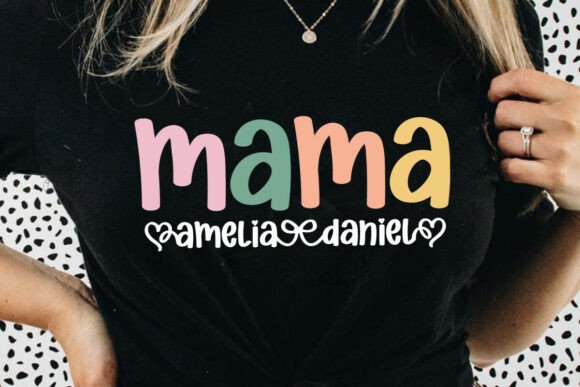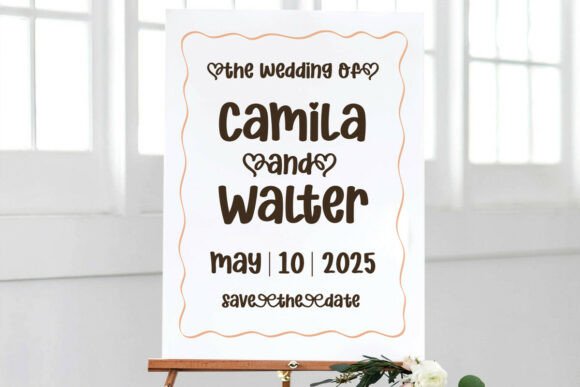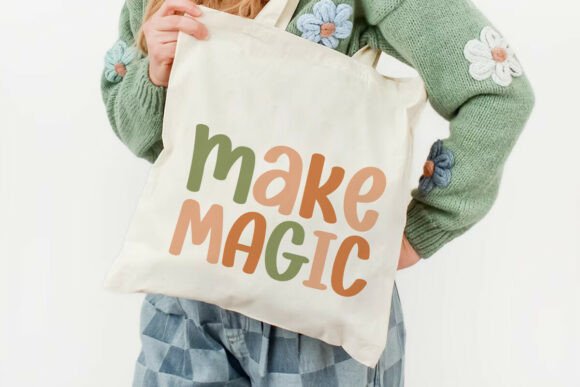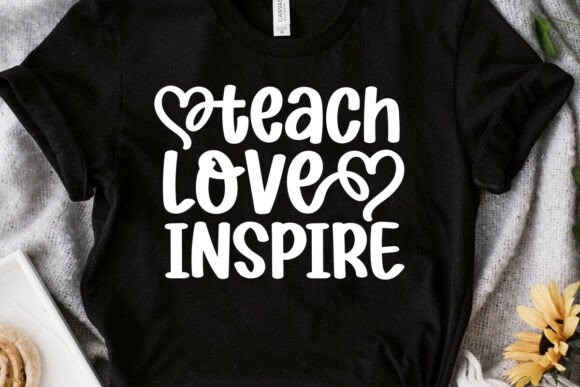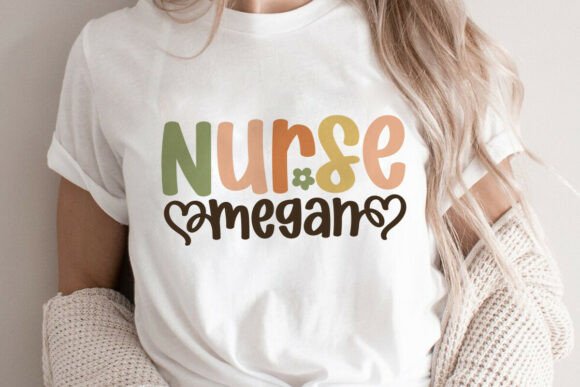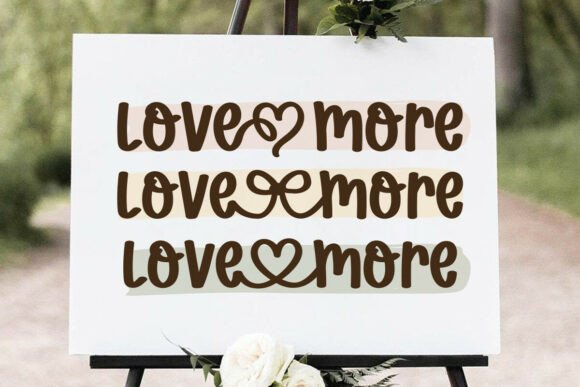
Dream Echo Font: Elevate Your Designs with a Modern, Stylish, and Flowing Handwritten Heart Font
In the world of typography, fonts play a crucial role in conveying emotions, setting tones, and making designs stand out. For designers, crafters, and anyone looking to add a personal touch to their creations, the right font can make all the difference. This is where the Dream Echo Font comes into play – a modern, stylish, and flowing handwritten heart font that is revolutionizing the way we approach design.
The Essence of Dream Echo Font
Dream Echo is not just another font; it’s an experience. It embodies the perfect blend of modernity and elegance, making it an ideal choice for those who wish to infuse their designs with a touch of sophistication and heart. Its characters are beautifully crafted, ensuring a well-balanced and harmonious look that can elevate any design from ordinary to extraordinary.
One of the standout features of the Dream Echo Font is its incredible versatility. It doesn’t matter if you’re working on a logo, branding materials, quotes, or any other creative project – this font matches a wide pool of designs seamlessly. Whether you’re aiming for something minimalist and subtle or bold and expressive, Dream Echo adapts perfectly, making it an invaluable asset in your design toolkit.
Crafting Eye-Catching Logos and Branding
Logos and branding are often the first things that potential customers notice about a business. In a crowded market, it’s essential to make a lasting impression. The Dream Echo Font, with its unique and captivating style, is the perfect choice for creating eye-catching logos and branding materials. Its modern and stylish appearance ensures that your brand stands out, conveying a sense of elegance and professionalism that resonates with your audience.
Bringing Quotes to Life
For writers, poets, and anyone who loves to share inspiring quotes, the Dream Echo Font offers a beautiful way to present your words. Its flowing and handwritten nature adds a personal touch to your quotes, making them more engaging and shareable. Whether you’re designing for social media, blogs, or print, this font ensures that your quotes are visually appealing and impactful.
Adding a Creative Spark to Your Ideas
Creativity knows no bounds, and with the Dream Echo Font, your most imaginative ideas can truly come alive. This font is not just a tool; it’s a form of expression that can transform your designs, adding a layer of emotion and personality. Whether you’re working on personal projects or professional assignments, incorporating Dream Echo into your design process can lead to innovative and captivating results.
Why Choose Dream Echo Font?
- Modern and Stylish: Adds a contemporary touch to your designs.
- Flowing Handwritten: Provides a personal and emotive feel.
- Well-Balanced Characters: Ensures harmony and consistency in your designs.
- Versatile: Suitable for a wide range of design projects.
- Eye-Catching: Perfect for creating standout logos, branding, and quotes.
The Dream Echo Font is more than just a typography option; it’s a design companion that can elevate your creative projects to new heights. Its modern, stylish, and flowing handwritten heart design makes it an excellent choice for designers and crafters looking to add a touch of elegance and emotion to their work. Whether you’re crafting logos, branding materials, or quotes, Dream Echo is poised to become your go-to font for making your designs stand out in a crowded creative landscape.